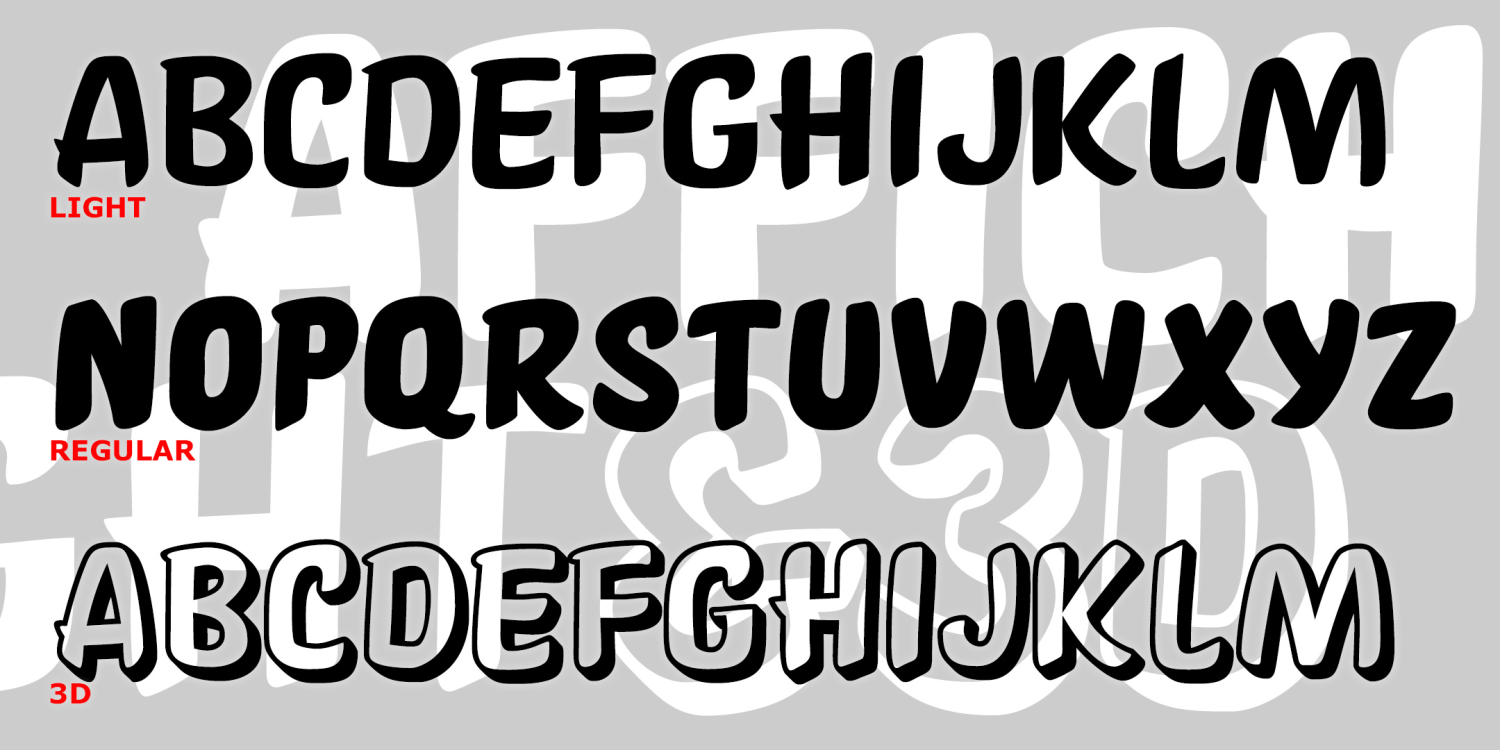
Affiche
AFFICHE is a set of fonts that resemble hand-painted signs, somewhat casual but with a distinctive and professional style. They were inspired by the hand-lettered titles of the 1959 film "The 400 Blows," directed by François Truffaut.
These fonts contain an extended character set to accommodate most all the languages of Europe that use the Latin, Greek, and Cyrillic alphabets. Available in Light, Regular and 3-D.